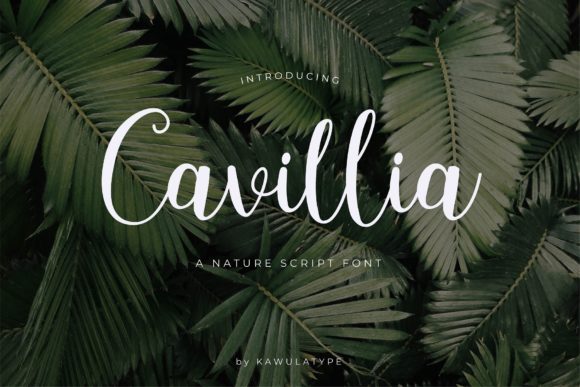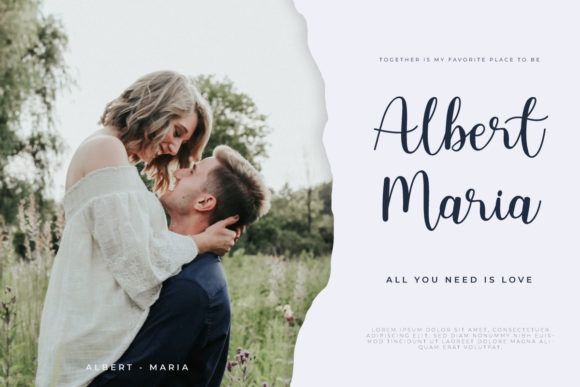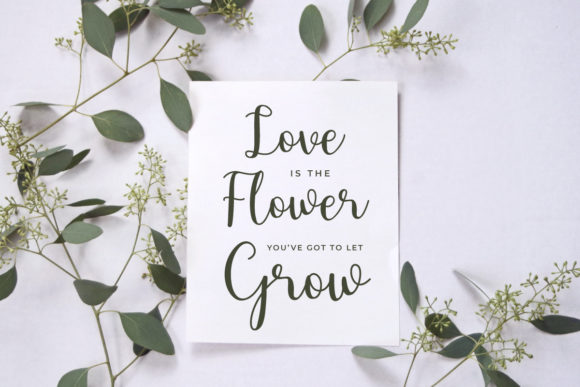
About Cavillia Font
Cavillia is a delicate script font. It has a classy, elegant and modern look that can be used for logos, branding, invitations, stationery, wedding designs, social media posts, and much more!